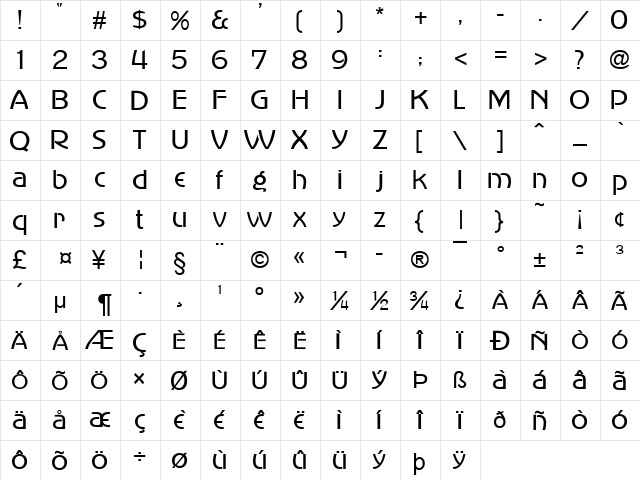
MadAve Madison Avenue
Design Context for MadAve Typeface
MadAve takes a measured approach to typography — its balanced proportions and neutral character make it a reliable workhorse for both digital and print work.